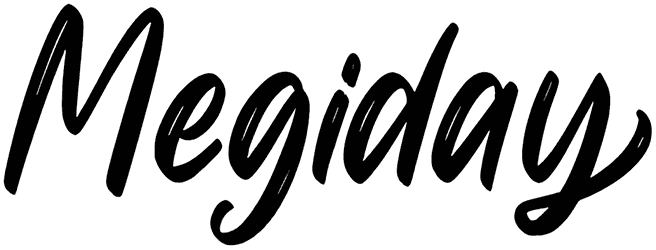
Megiday Font
Megiday is a script font that is perfect for any kind of creative design, such as magazines, posters, brochures, and logos. Aside from not supporting numbers, this brush font will elevate your graphic content to the highest level by instilling a sense of natural, personalization, drama, and dynamism in the audience’s minds.
Megiday is a elegant handwritten font. Made for any professional project branding. It is the best for logos,branding and quotes. Every letter has a unique and beautiful touch.